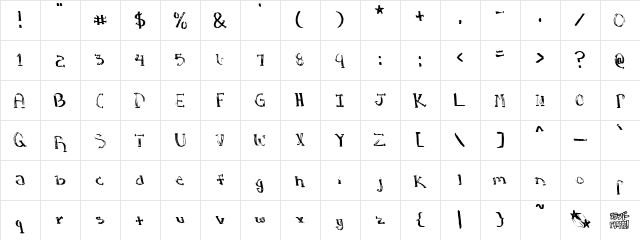
Stopwatch Regular
Design Context for Stopwatch Typeface
Stopwatch is a composed and adaptable typeface that performs quietly and consistently across a wide range of design contexts.